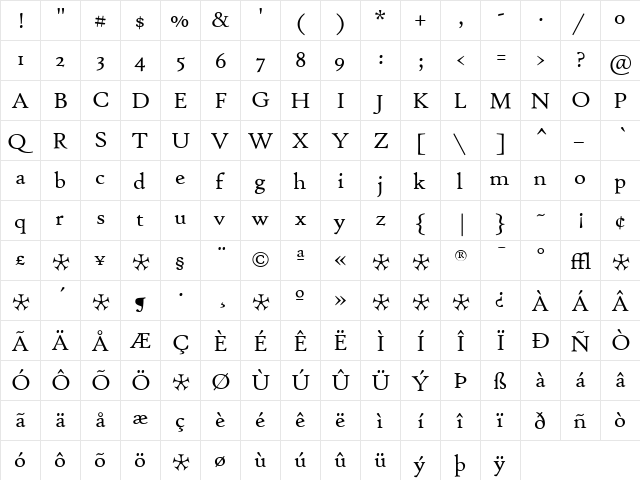
Hightower Regular Font Preview
Hightower Regular
Hightower Regular Font Details
| Foundry | Copr. Tobias Frere-Jones, designer. Produced by The Font Bureau, Inc |
Design Context for Hightower Typeface
Hightower is a composed and adaptable typeface that performs quietly and consistently across a wide range of design contexts.